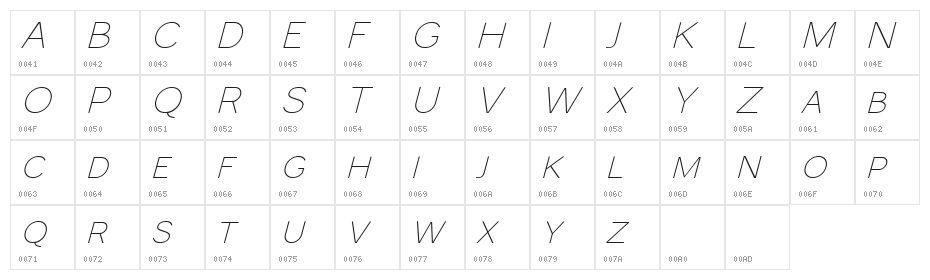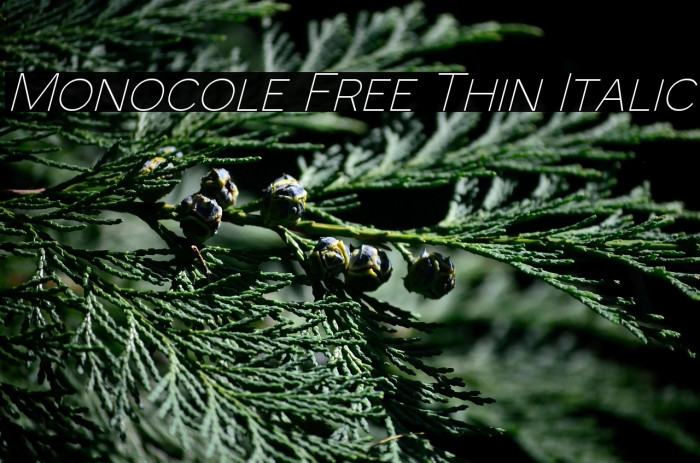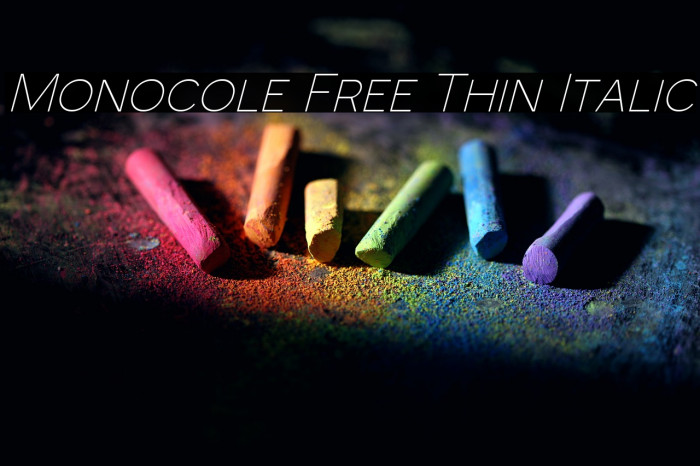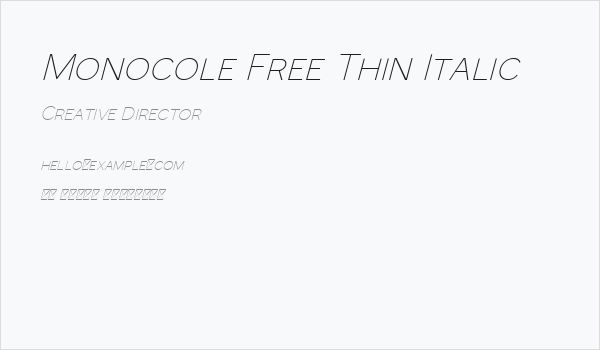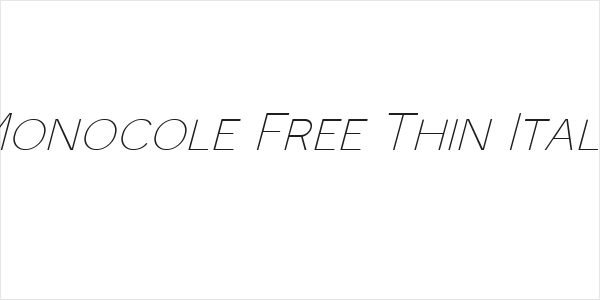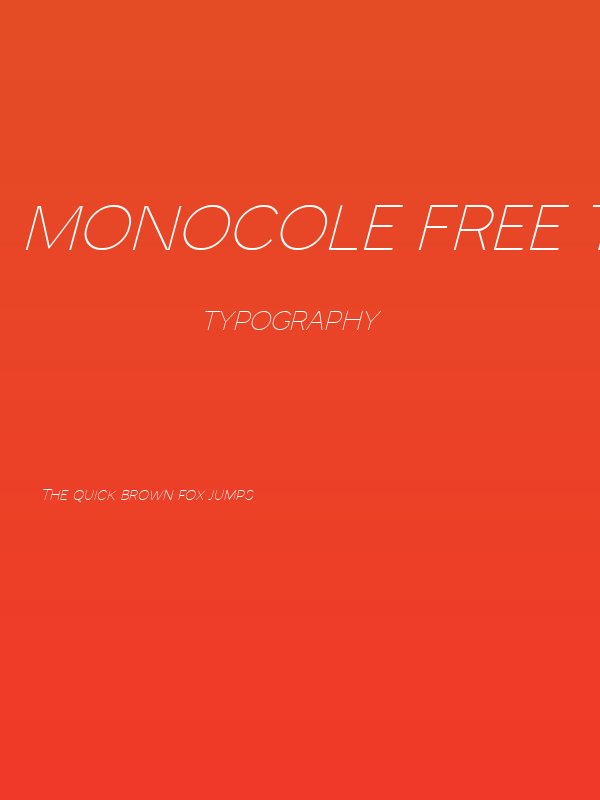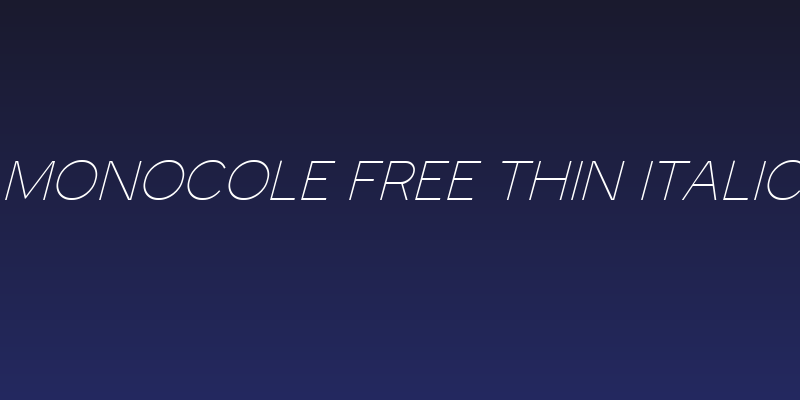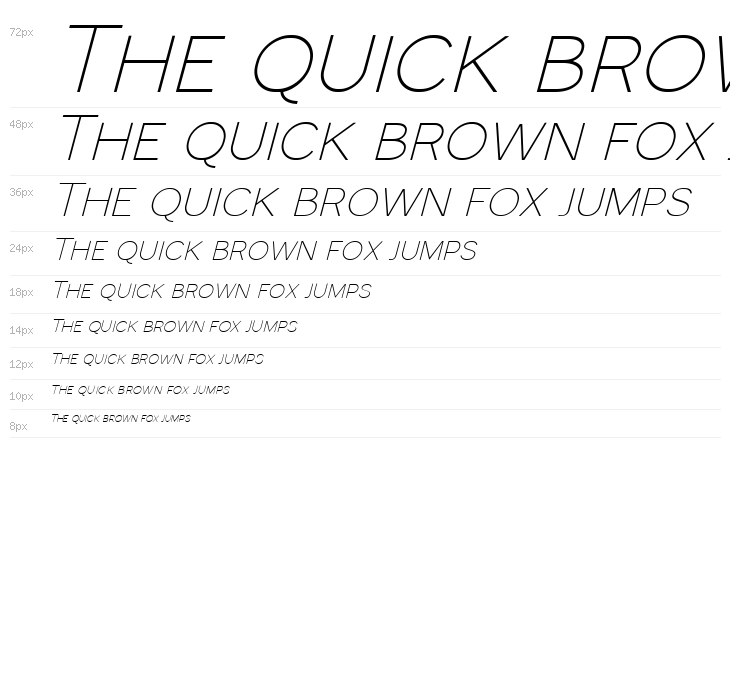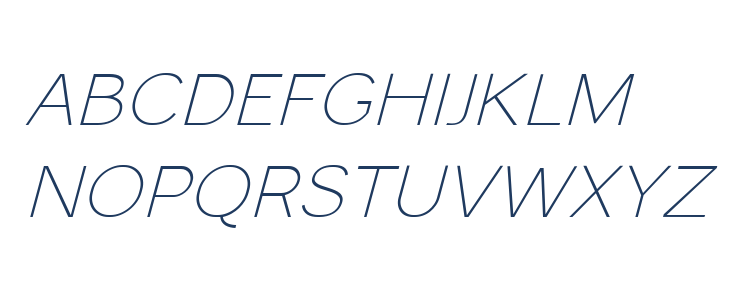
Monocole Free Thin Italic Font
Monocole Free Thin Italic Description
This font features a sleek and elegant design with thin, elongated letterforms that convey a sense of modernity and sophistication. The italic style adds a dynamic and fluid touch, enhancing its contemporary appeal. Each character is crafted with precision, maintaining a consistent stroke width that contributes to its refined appearance. The font's minimalistic nature makes it versatile for various design applications, while its italic slant introduces a sense of movement and grace. The overall aesthetic is clean and uncluttered, making it suitable for projects that require a touch of elegance and modernity.